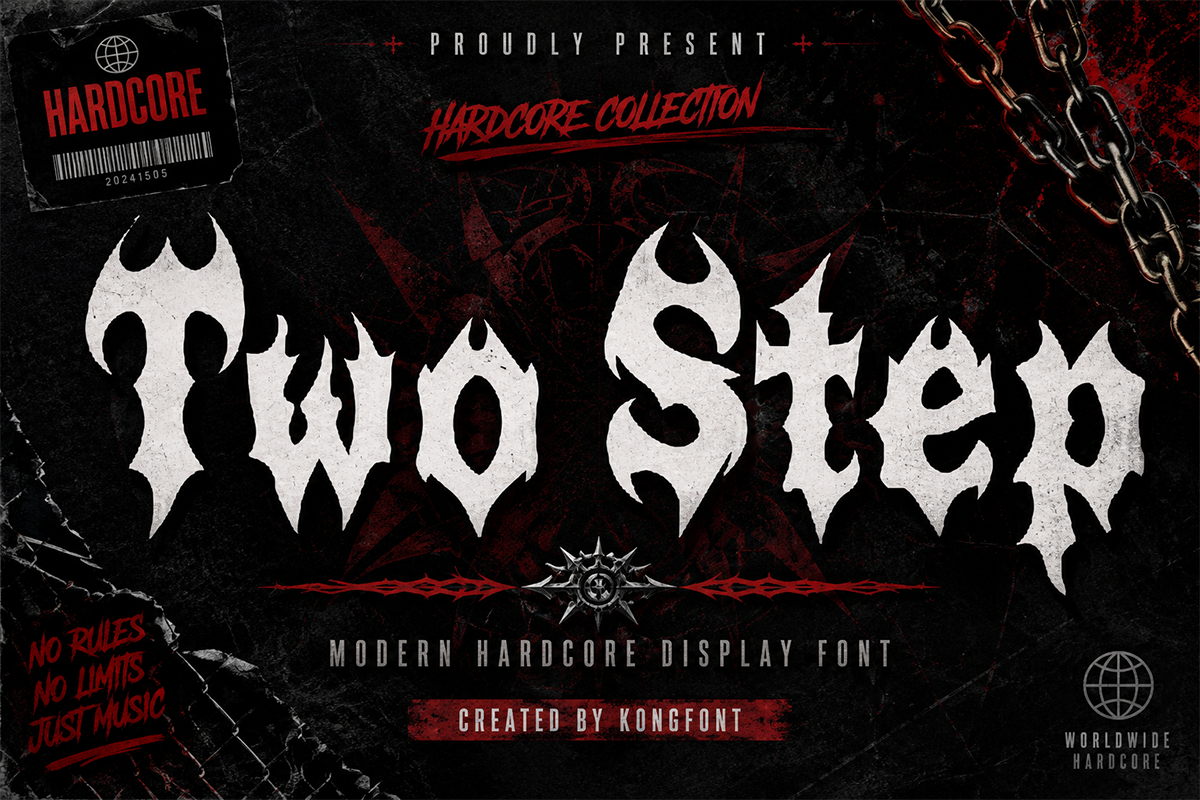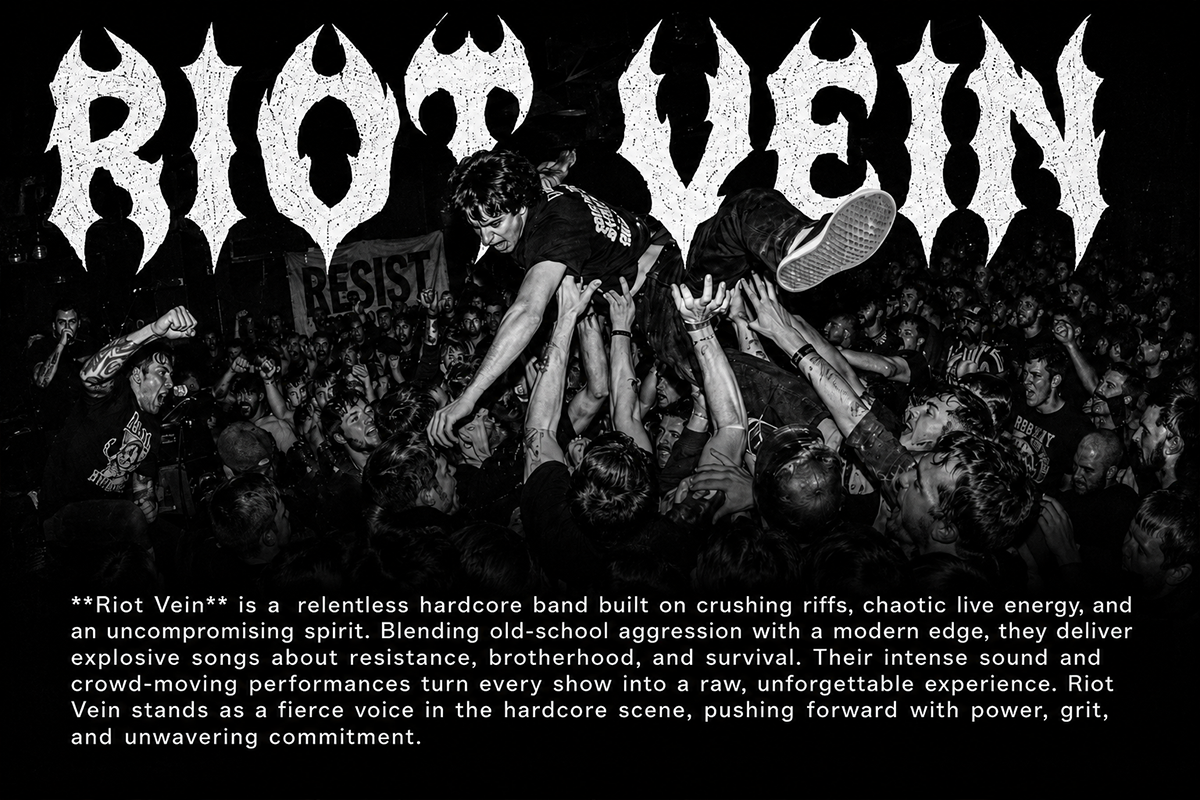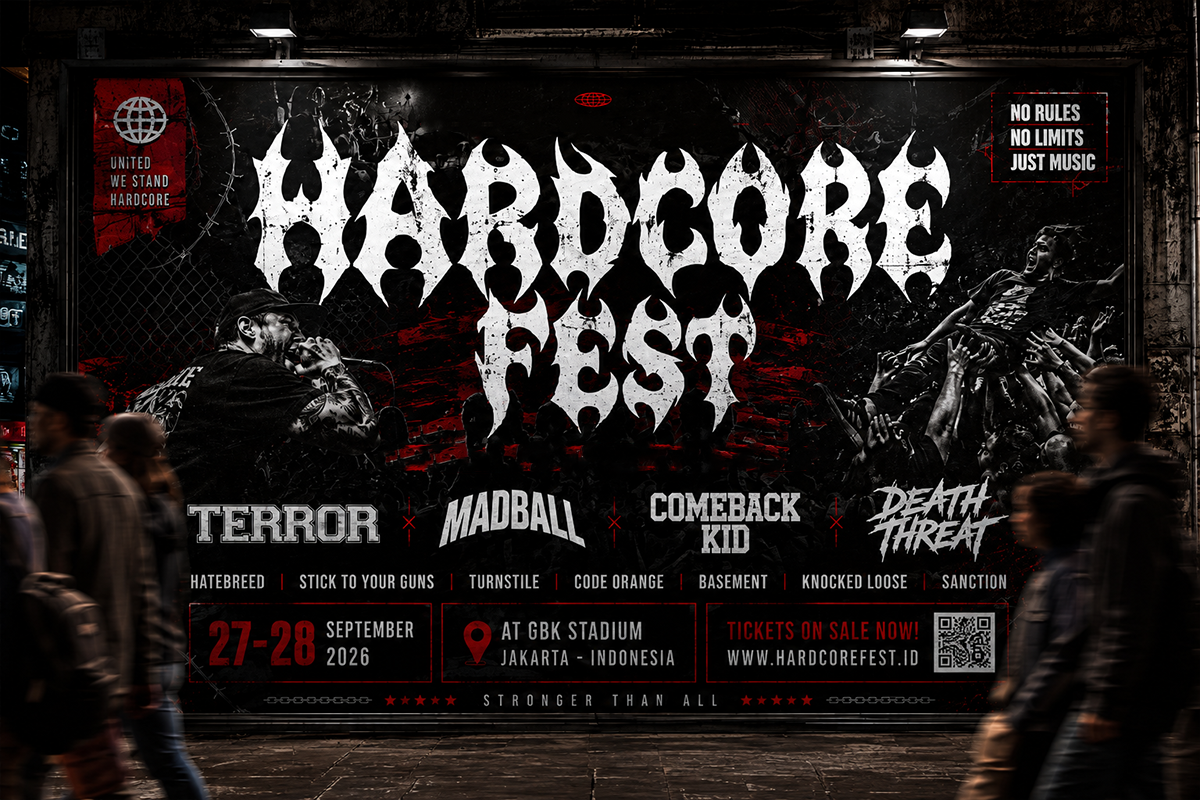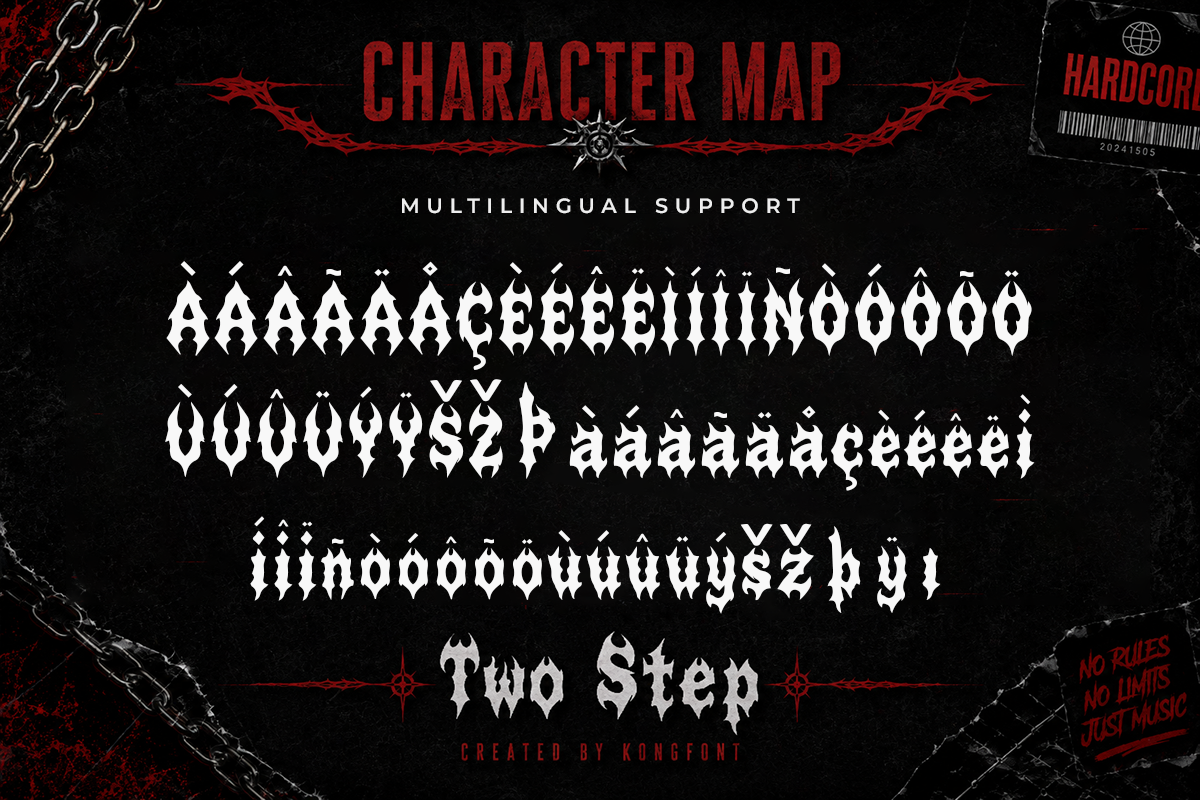
Two Step is perfect for hardcore and metal band logos, album covers, concert posters, streetwear, merchandise, music festivals, skate graphics, tattoo-inspired artwork, gaming titles, stickers, apparel, and alternative branding.
Inspired by hardcore shows, underground venues, heavy music, distressed posters, chains, and rebellious street culture, Two Step turns every word into a loud visual statement made to stand out. For your social media needs, you can use and install fonts in our collection of Blackletter fonts to use as Instagram Fonts, Facebook Fonts, and Twitter Fonts. As well as the application of this font, you can use it in several applications, such as Figma fonts, Canva fonts, Freepik fonts, Adobe fonts, Google fonts, Instagram fonts, and Social Media Fonts.For our customers, we provide a collection of The Best Blackletter Fonts, each with its own unique styles and characteristics, so that our customers can create any design they want. We know what our clients love! That is why we prepare everything you may need in one simple downloadable package for you. Our easy-to-grab package contains all of the files you will ever need to create beautiful typography!